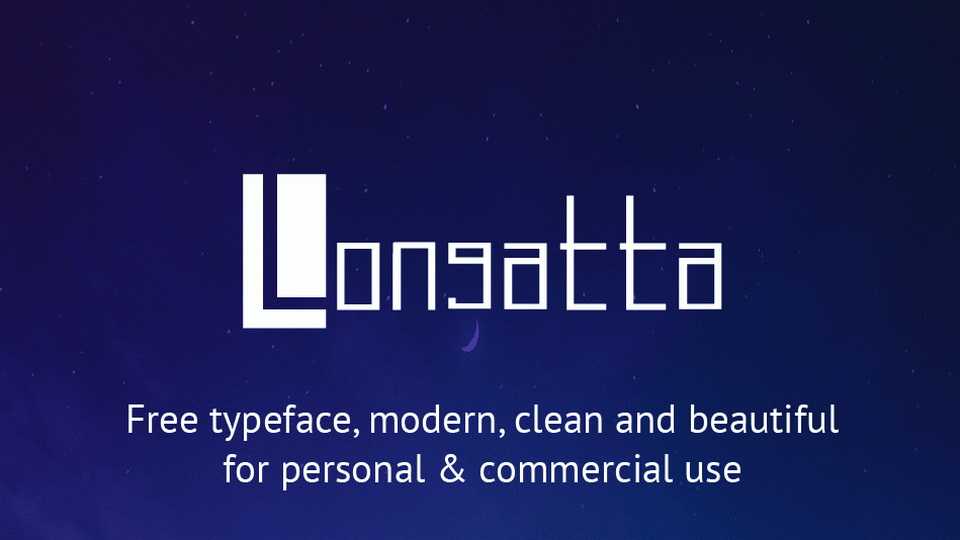
Download Longatta typeface, a block display font family in three styles with strict square shapes and tech-style look. Longatta font fits for posters, headlines, games,and other projects.